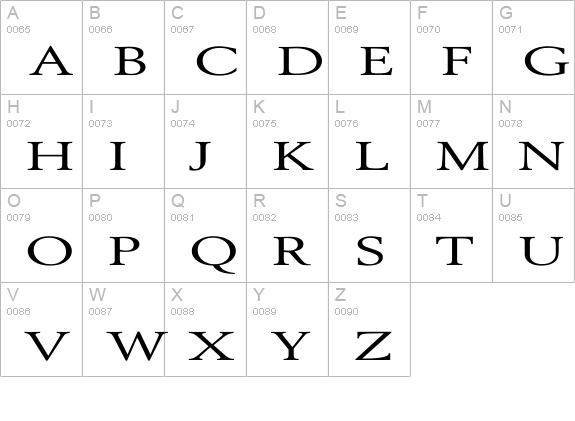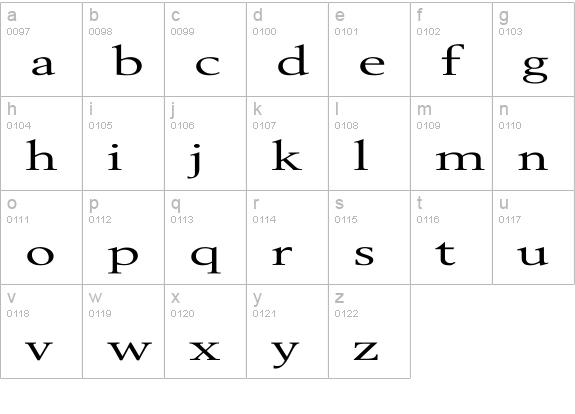
Revive OV Ex Font Details
Introducing Revive OV Ex font, a stunning typeface that combines elegance and versatility. With its modern and sophisticated design, this font is sure to elevate any project to the next level. Whether you are designing a logo, creating a website, or working on a branding project, Revive OV Ex font will add a touch of professionalism and style. What makes Revive OV Ex font even more special is that it is available for free download at FontsMarket.com. Yes, you read that right - this exceptional font can be yours without spending a dime. Now you can enjoy the beauty and functionality of Revive OV Ex font without any cost. The carefully crafted curves and clean lines of Revive OV Ex font make it a perfect choice for both headlines and body text. Its legibility ensures that your message will be delivered in a clear and impactful way. The wide range of weights and styles available allows you to experiment and find the perfect fit for your project, whether you are looking for something bold and eye-catching or elegant and understated. With Revive OV Ex font, you have the freedom to unleash your creativity and bring your designs to life. This font is not only visually stunning but also incredibly easy to use, making it suitable for designers of all skill levels. Whether you are a seasoned professional or just starting out, Revive OV Ex font will provide you with the tools you need to create something truly remarkable. So why wait? Download Revive OV Ex font for free at FontsMarket.com and experience the countless possibilities it offers. With its exceptional design, versatility, and affordability, this font is a must-have in any designer's toolkit. Don't miss out on the opportunity to elevate your projects and make a lasting impression. Get Revive OV Ex font today and let your creativity soar.